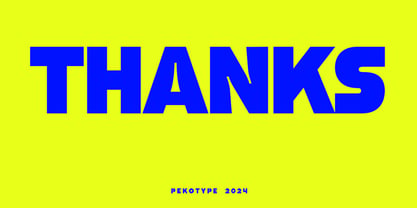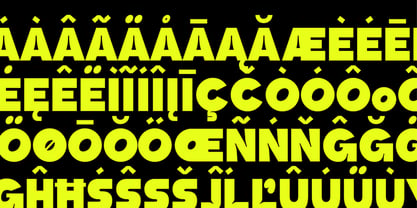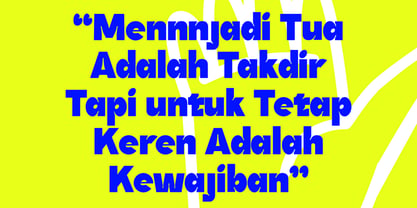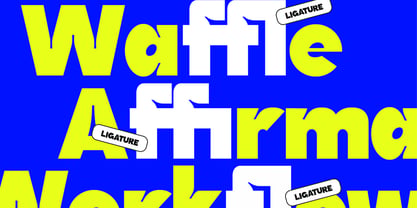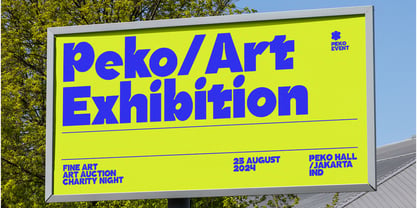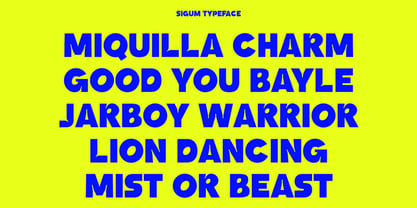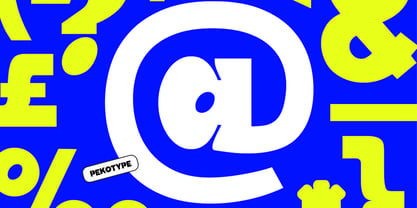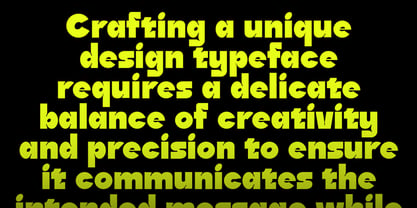
Sigum
von Pekotype
Die Schriftfamilie Sigum wurde von Galang Bryan entworfen und von Pekotype veröffentlicht. Sigum enthält 1 Stile. Mehr über diese Familie
SIGUM is a bold, funky sans-serif display font with unique ink trap accents. This font is perfect for various design projects, from branding and marketing materials to posters and game user interfaces. Its boldness and funky elements give it a modern, dynamic feel, making your designs stand out. Whether you're crafting attention-grabbing ads or engaging digital interfaces, SIGUM offers a versatile and visually appealing solution.
Designer: Galang Bryan
Foundry: Pekotype